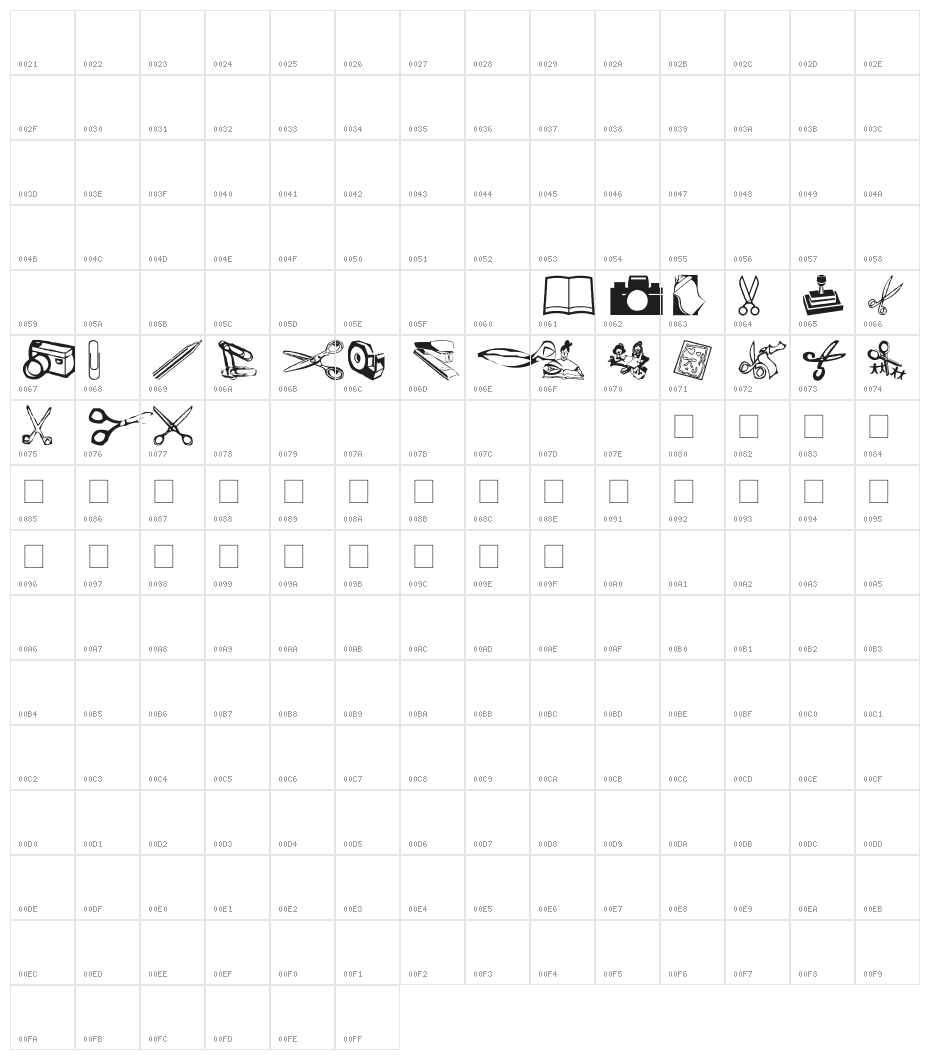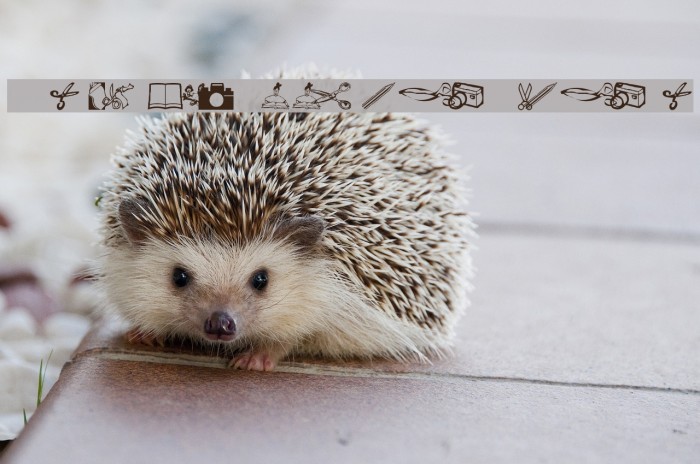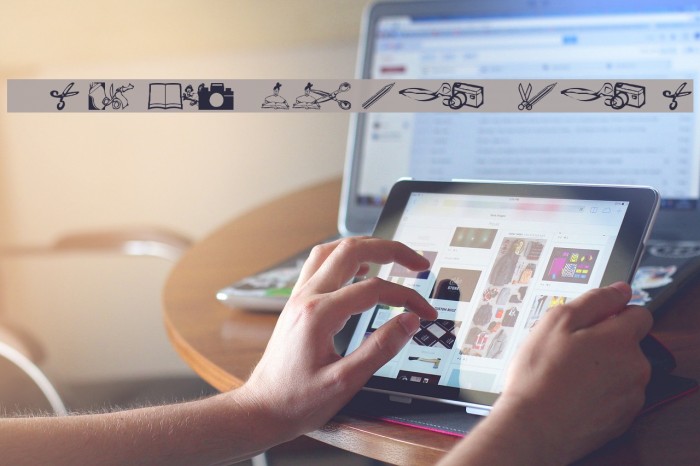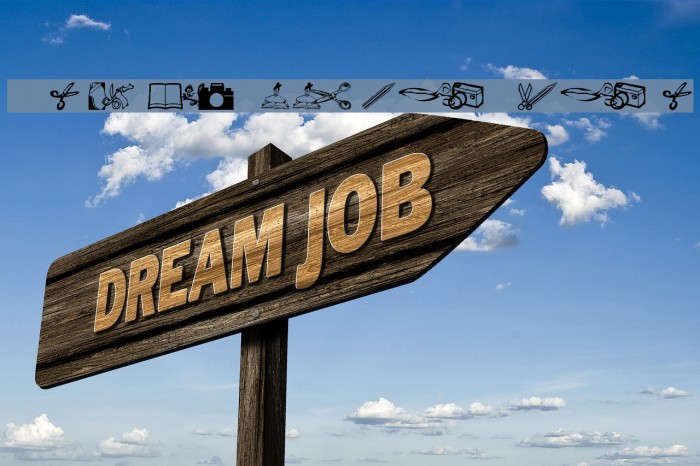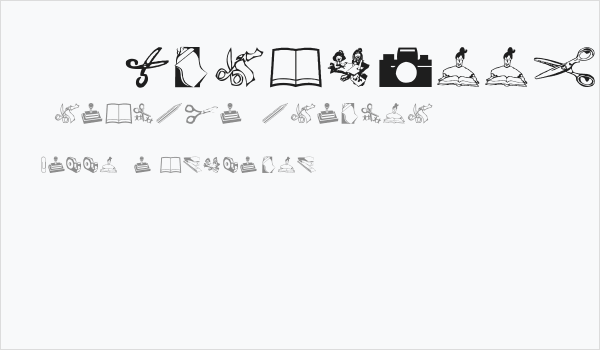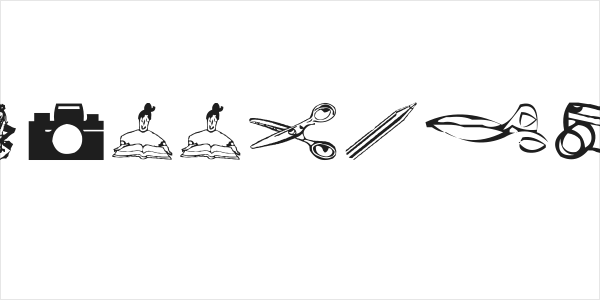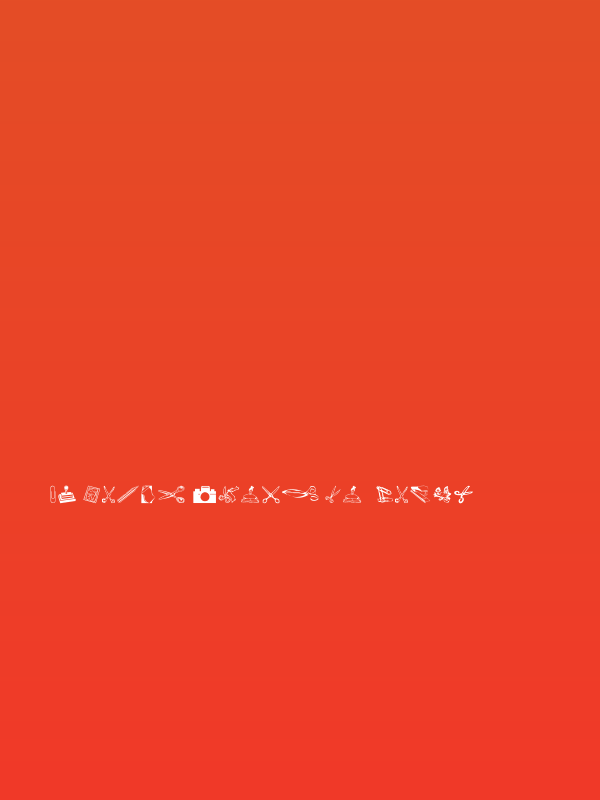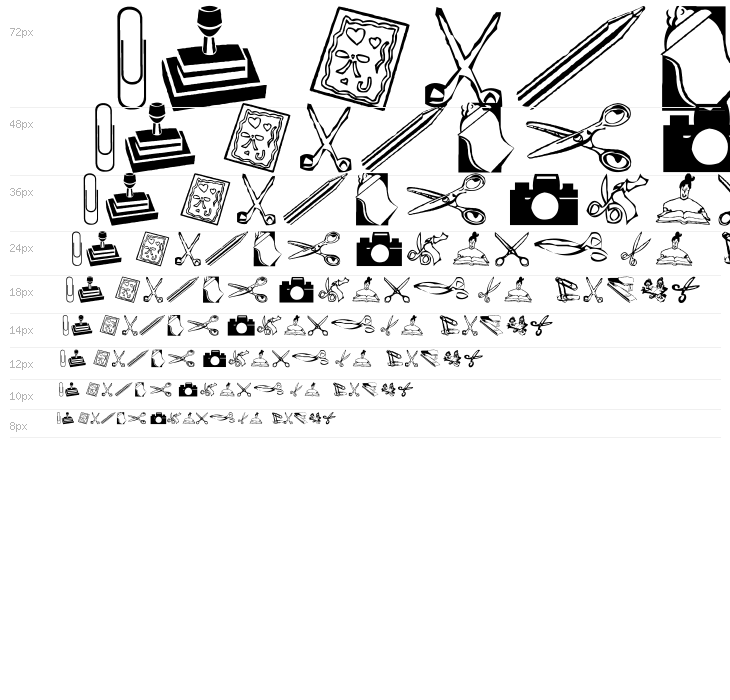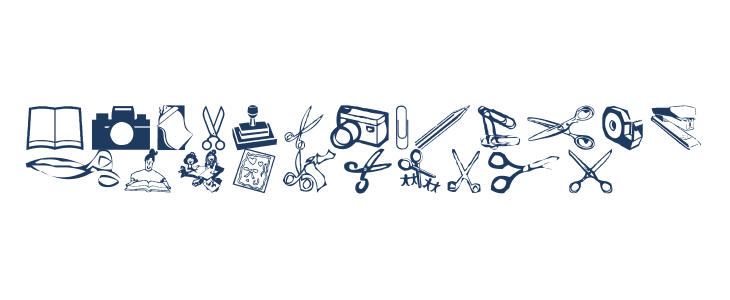
AEZ scrapbooking dings Font
AEZ scrapbooking dings Description
This set of dingbat symbols is designed with a playful and creative theme, perfect for scrapbooking enthusiasts. Each symbol represents a different tool or element commonly associated with crafting and scrapbooking, such as scissors, cameras, and decorative elements. The illustrations are detailed and whimsical, capturing the essence of a fun and engaging crafting experience. These symbols can add a unique touch to any project, providing a visual representation of the joy and creativity involved in scrapbooking.
Use CaseLogos, Decorative elements, Craft projects
Proposed ProjectsIdeal for scrapbooking projects, crafting blogs, DIY tutorials, and creative workshops.